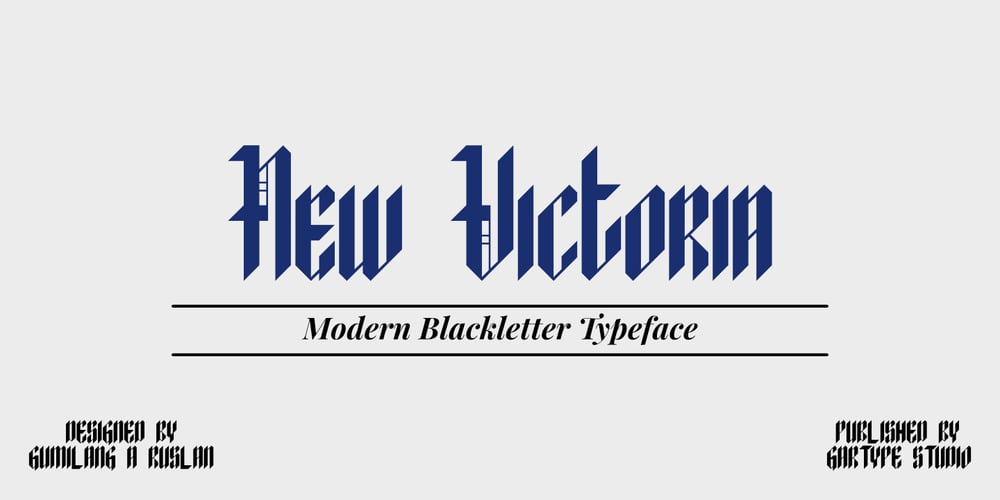
New Victoria
New Victoria font
New Victoria Font Family was designed by Gumilang Anggara Ruslan and published by Gartype Studio. New Victoria contains 2 styles and family package options. A modern blackletter typeface, designed by combining an old english style & modern style. It can be used for textbook, display text, headlines, logotype, and more. Within support by multilingual glyphs (characters), & lot of punctuations to support many people around the world with their unique languange and accent. Thank you very much.